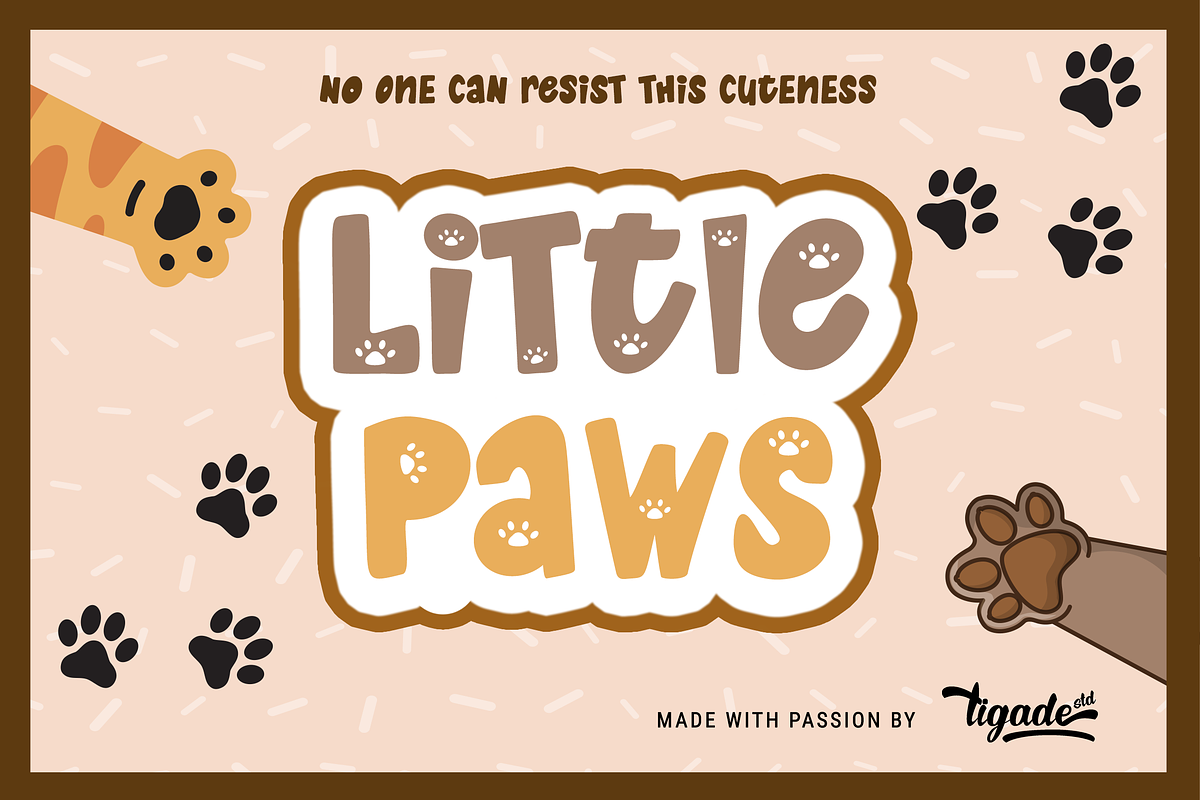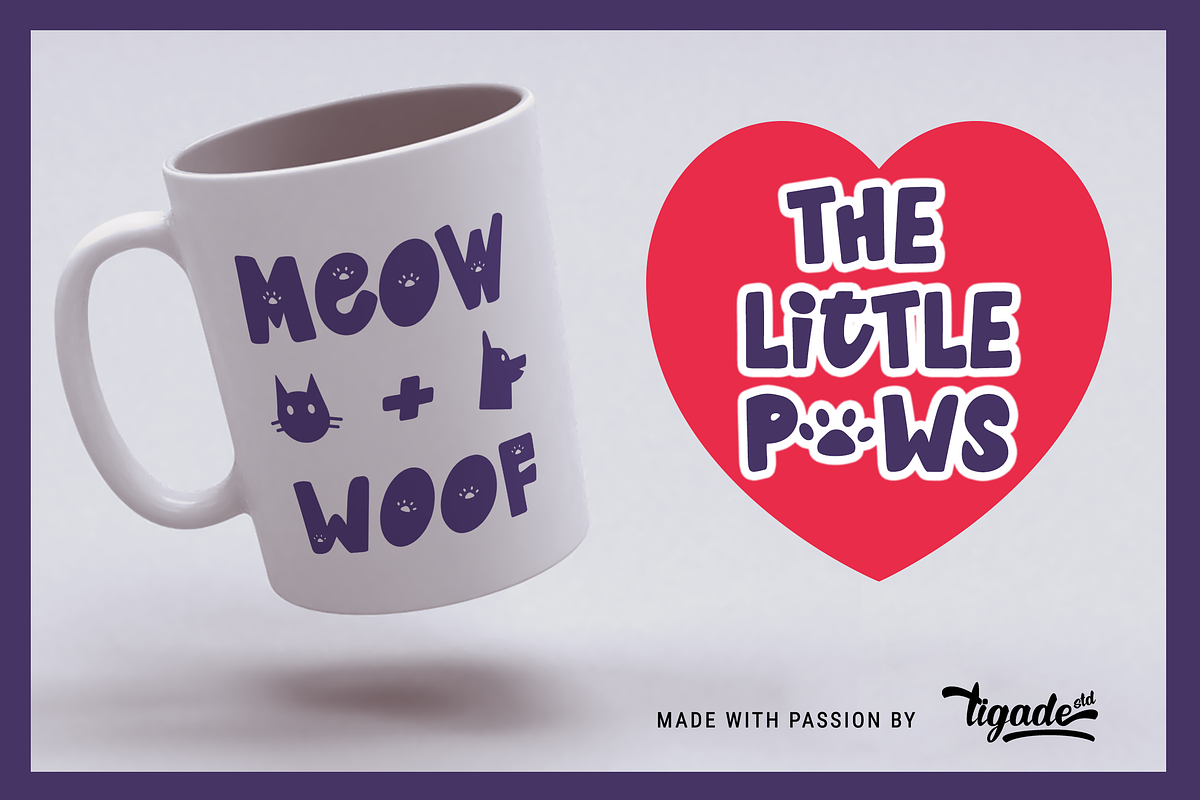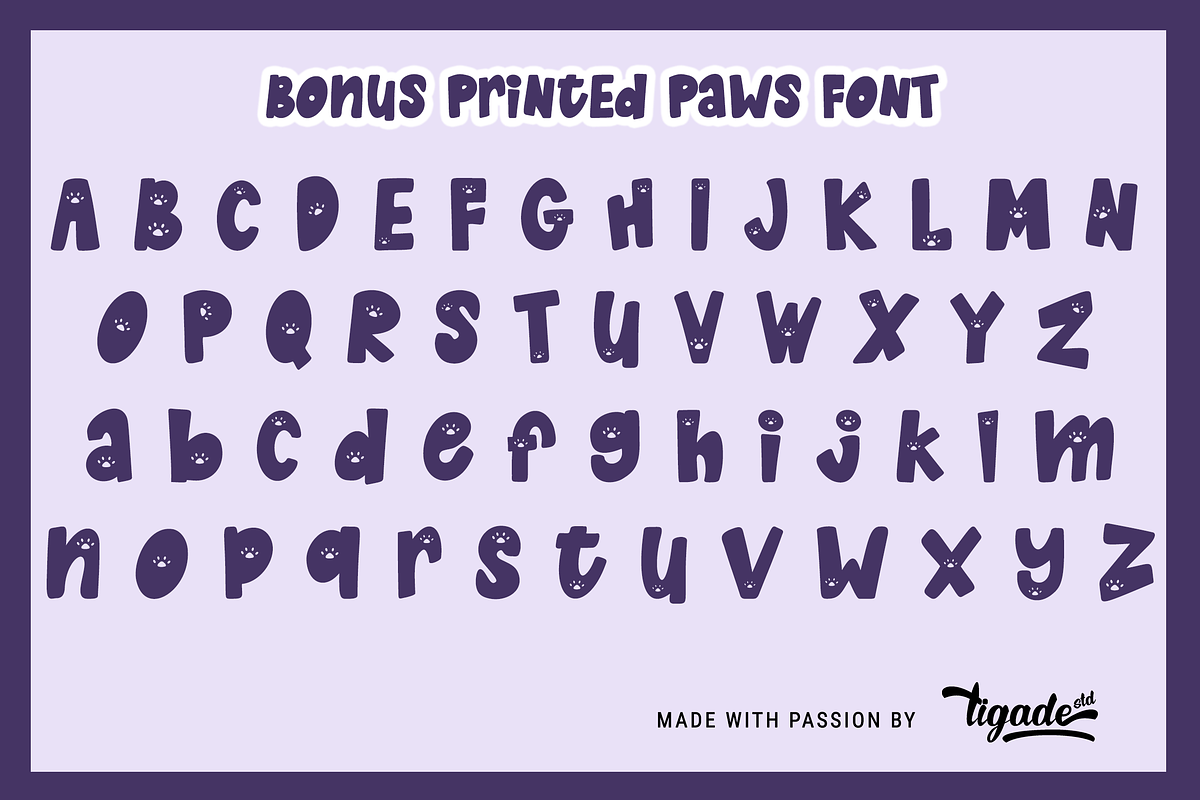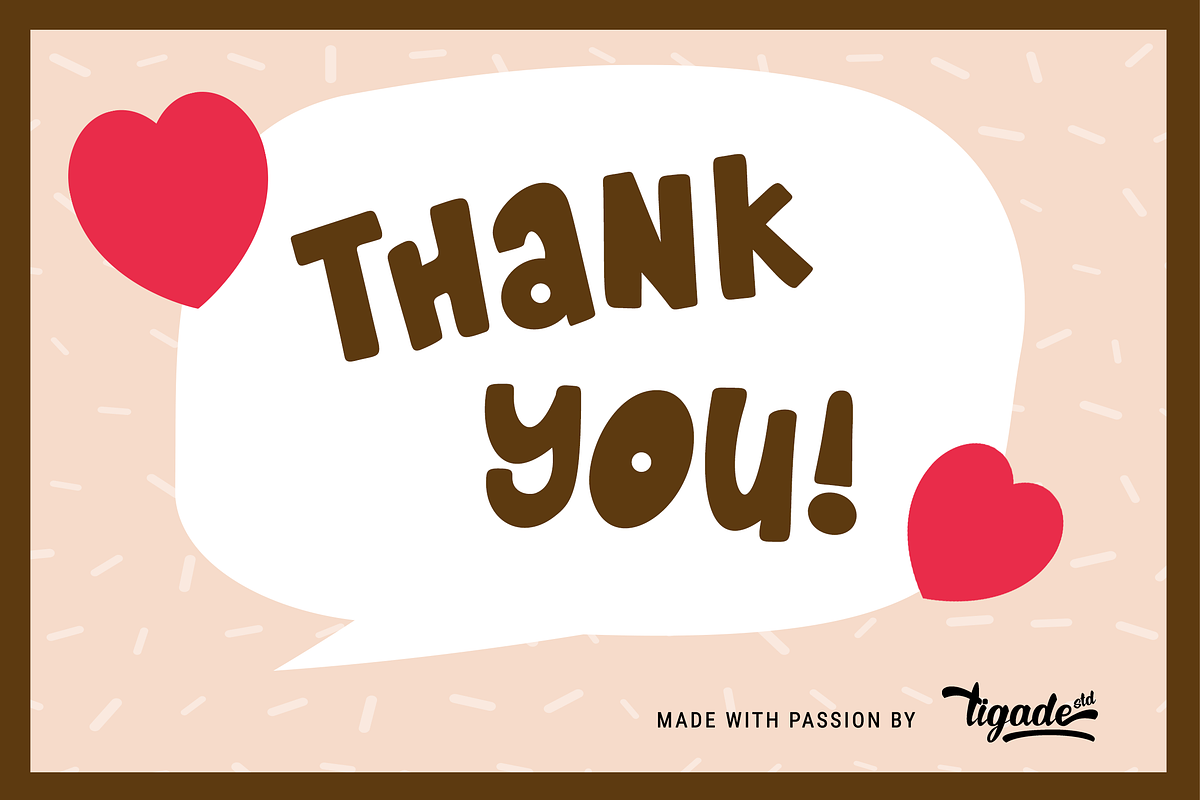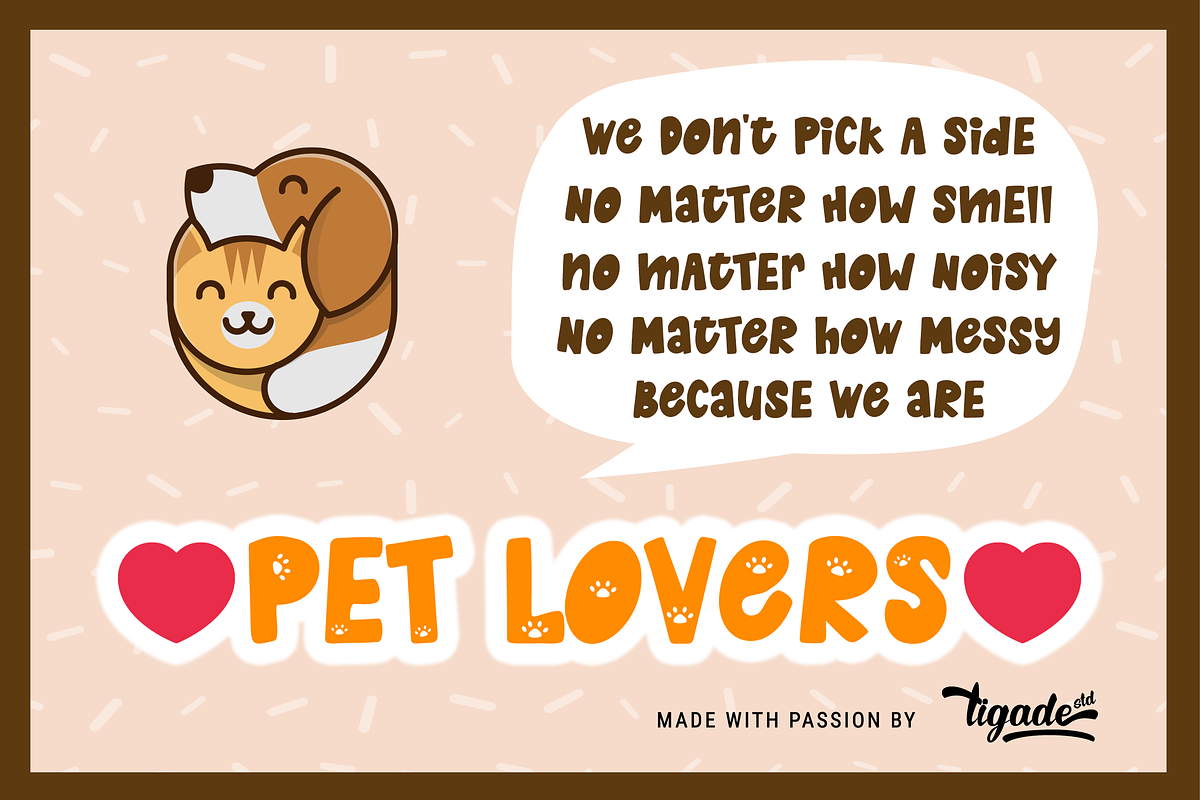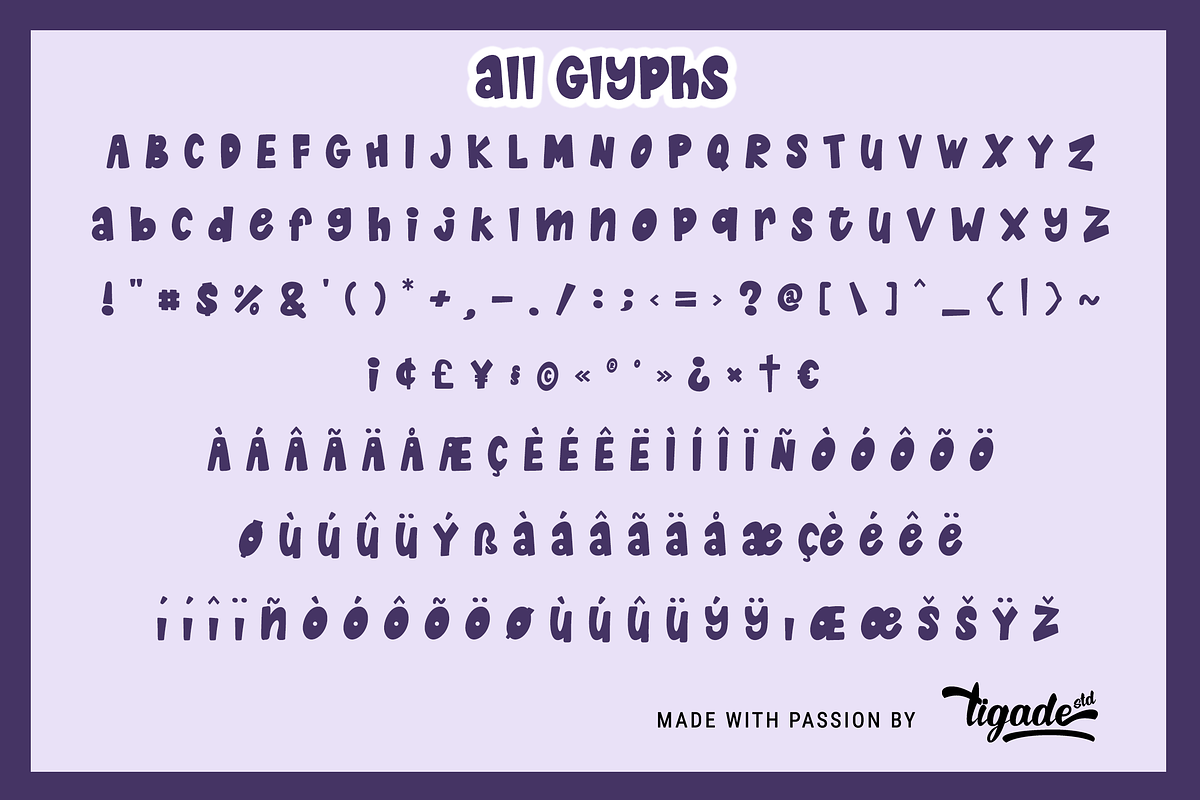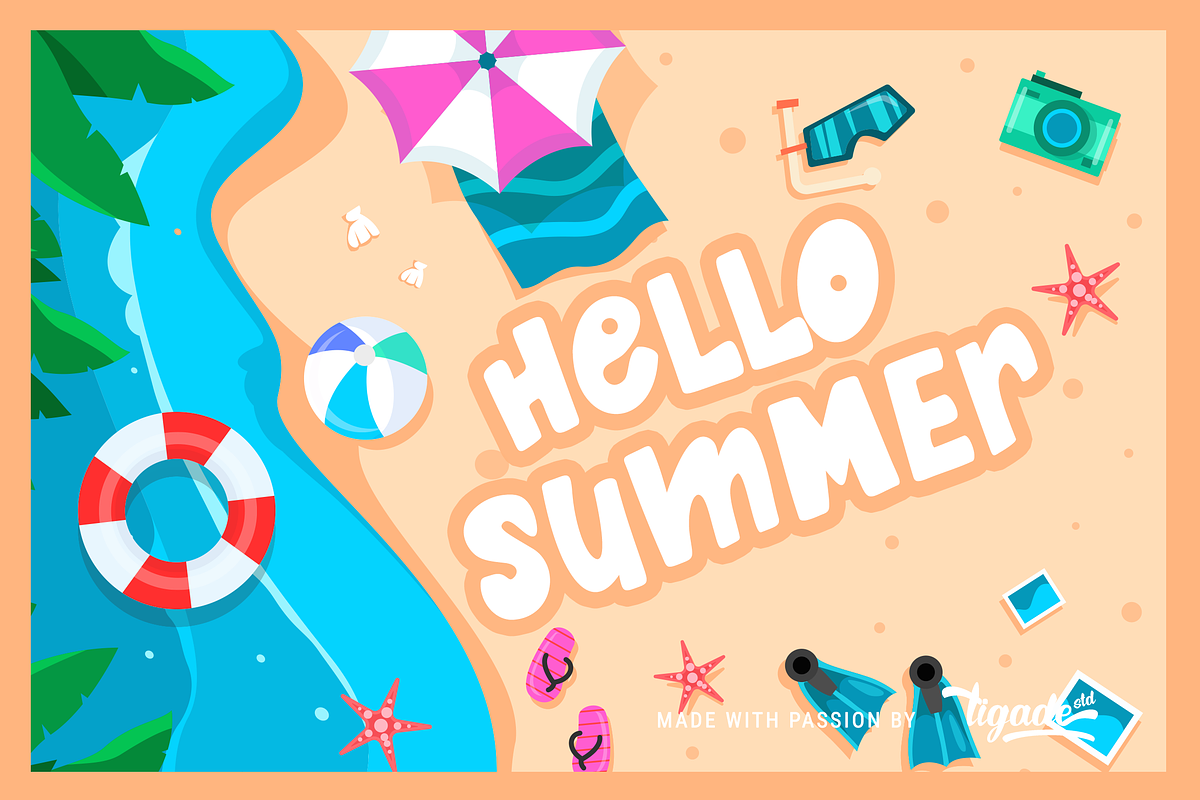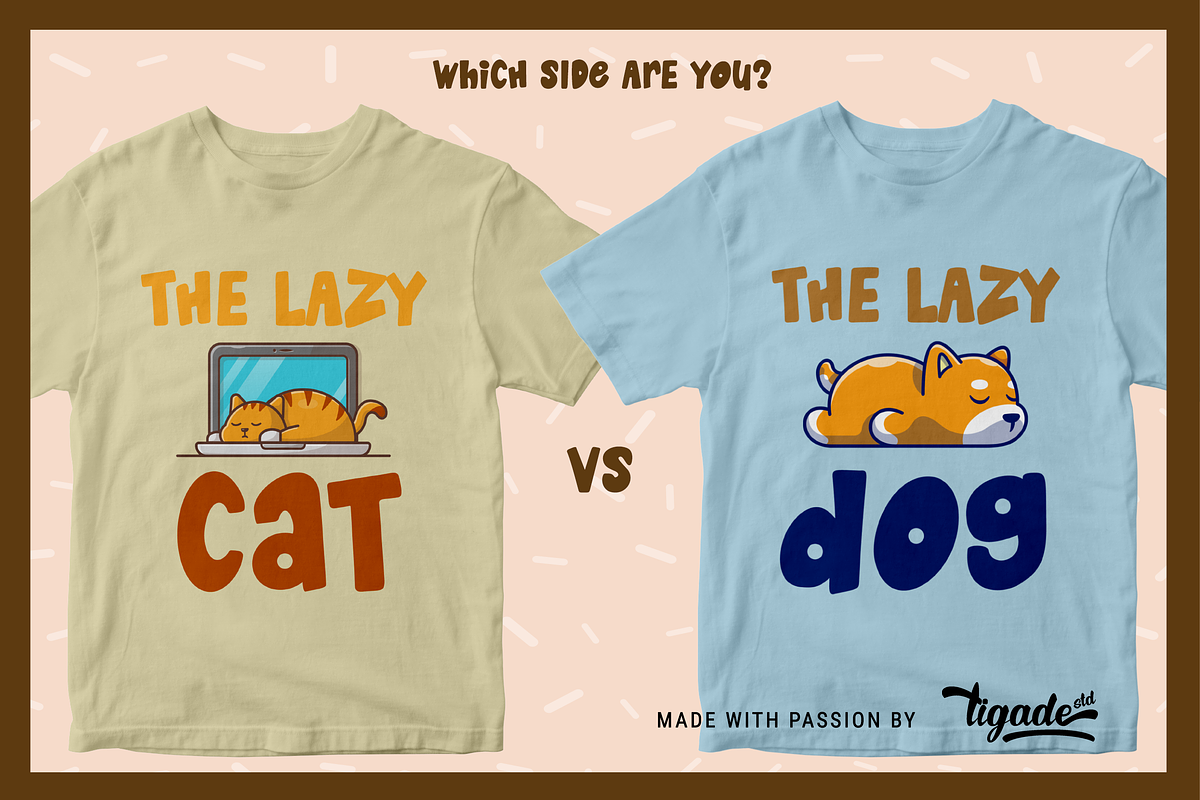
Little Paws | Adorable Cat & Dog
Are you team Cat or team Dog? Doesn't matter which side you are pick to, Little Paws font is cuteness overload. It is for everyone, not only limited to Cat or Dog but also open for any Pet Lovers. This font is suitable for happy theme, cute, party, holiday, kids and many more. It is also suitable for Logo, Cards, Branding, Social Media, Youtube Thumbnail, Advertisement, Posters, any many others.
To make it easier for you to design, we provide two additional font family to enhance the beauty of the design.